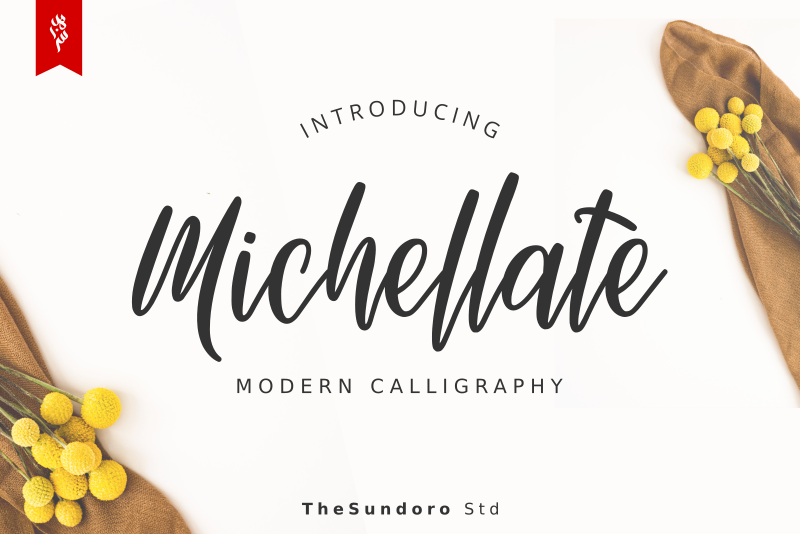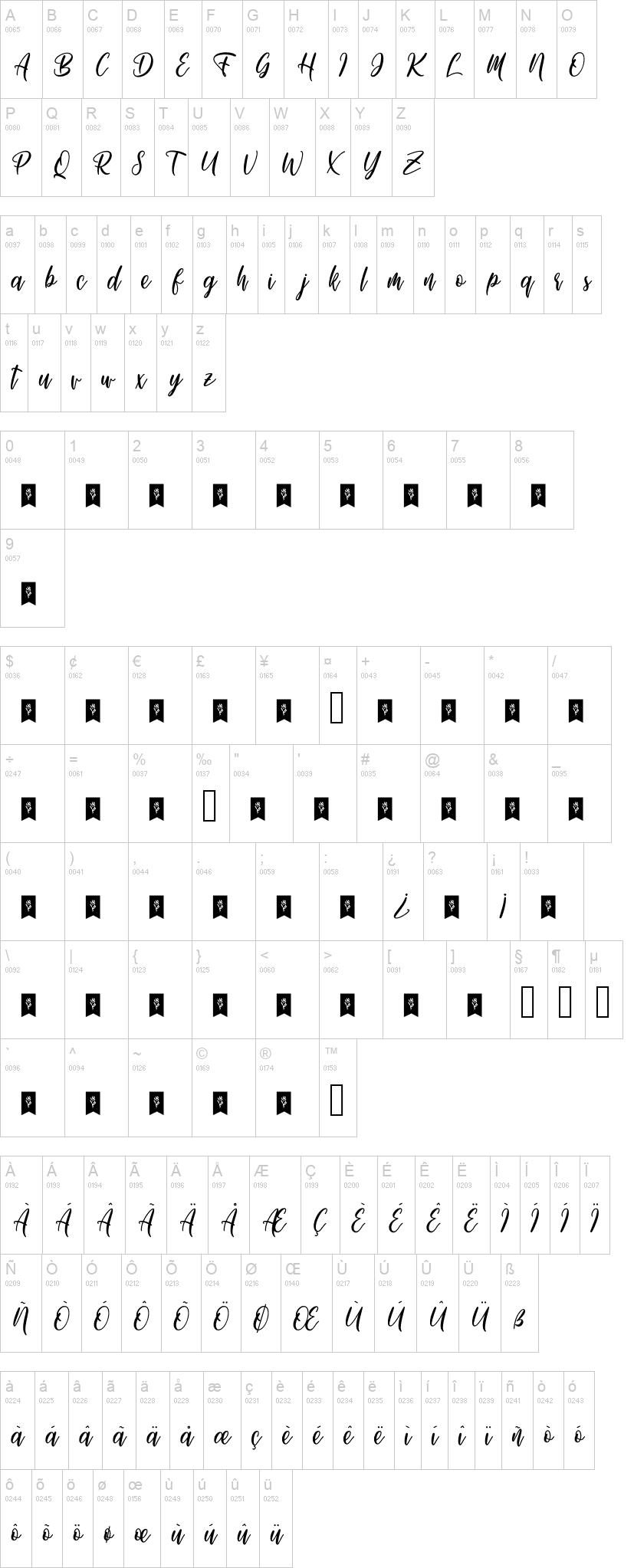
Michellate feels incredibly elegant and flowing. It looks stunning on wedding invitations, thank you cards, quotes, greeting cards, logos, business cards and every other design which needs a handwritten touch. It features a varying baseline, smooth lines, gorgeous glyphs and stunning alternates.